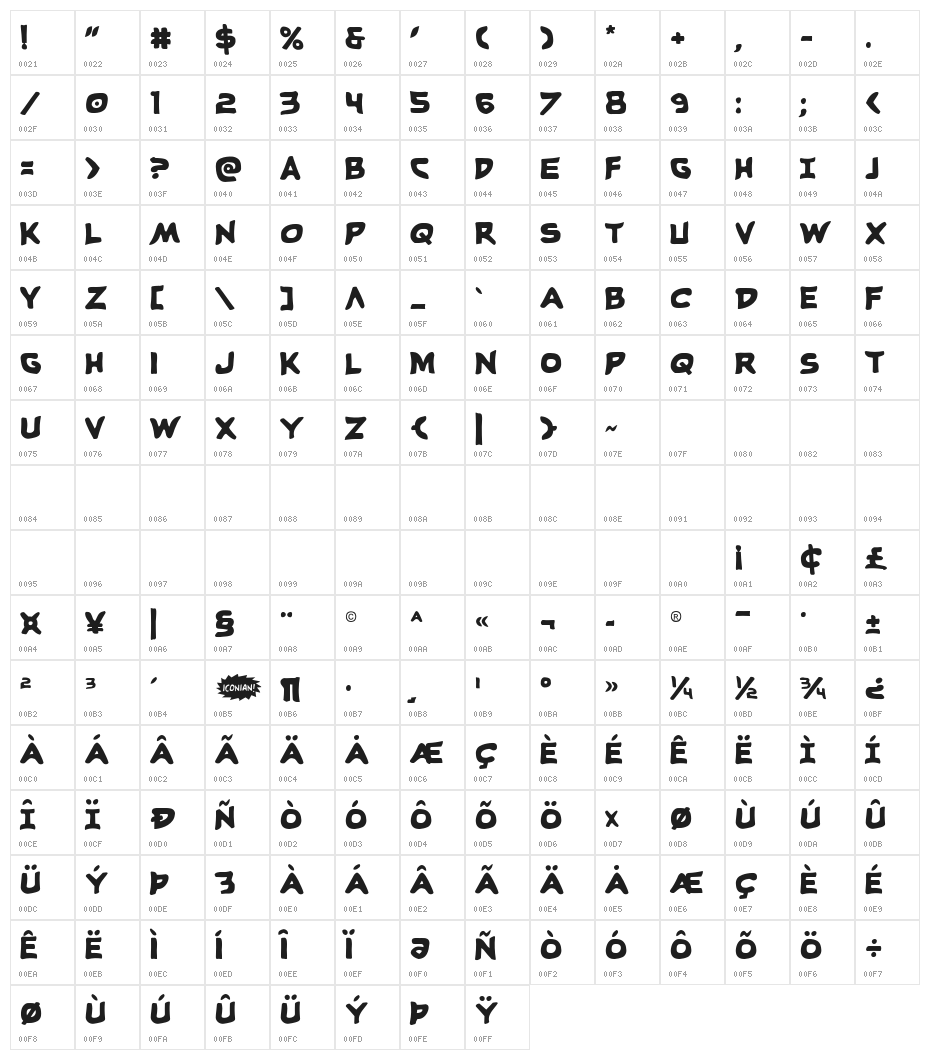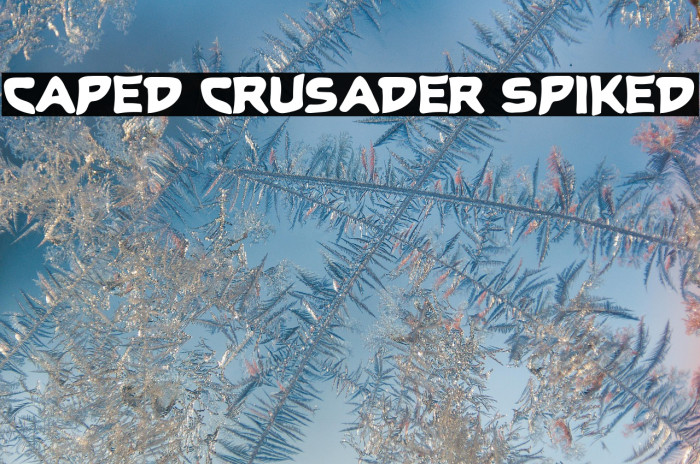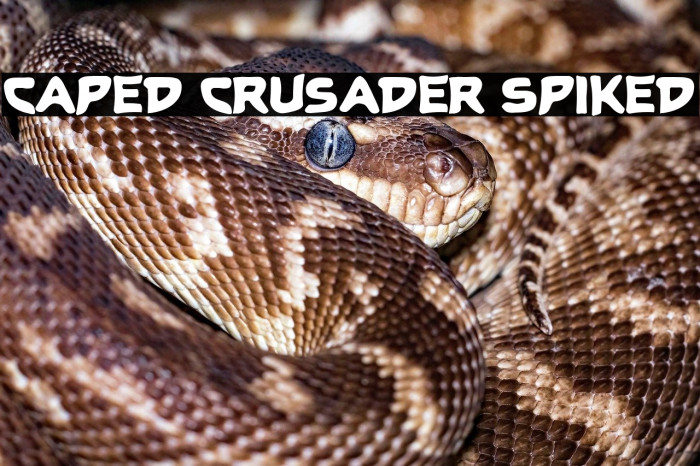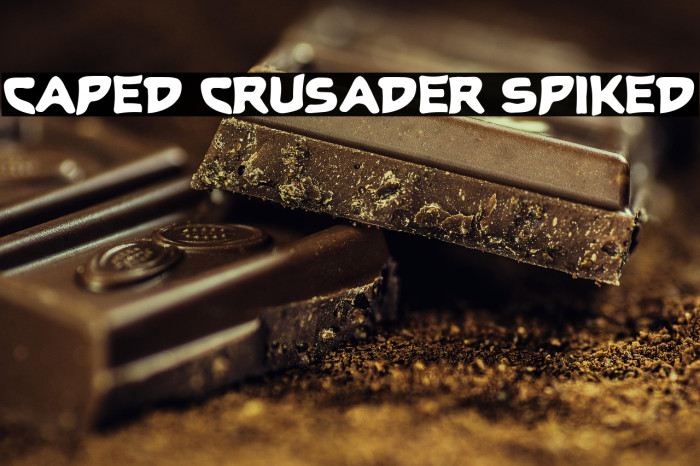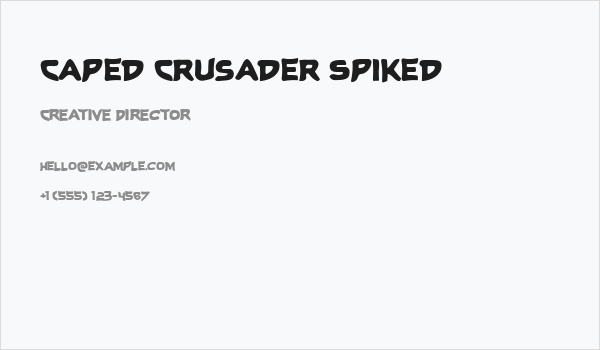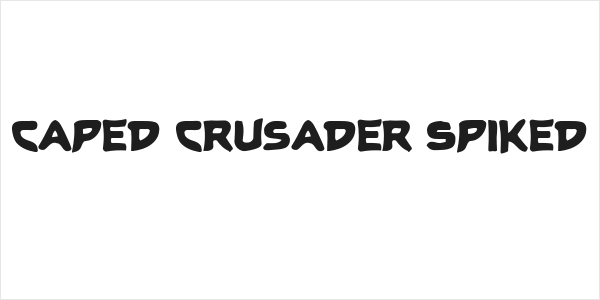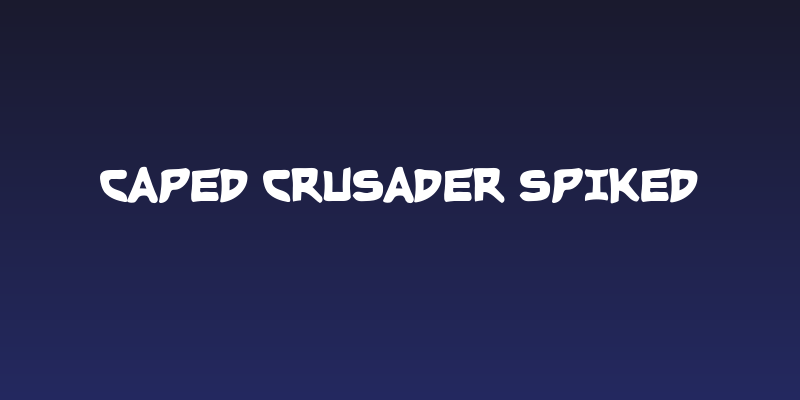
Caped Crusader Spiked Font
Caped Crusader Spiked Description
This font features bold, dynamic characters with a playful and slightly aggressive style. The letters are thick and have a spiked, jagged appearance, giving them a unique and edgy look. The uppercase and lowercase letters maintain a consistent style, with exaggerated curves and angles that create a sense of movement and energy. The numbers and special characters follow the same design principles, ensuring a cohesive appearance across all elements. This font's boldness and distinctive style make it stand out, making it suitable for attention-grabbing designs.
| Proposed Projects | Ideal for comic book titles, action-themed posters, video game graphics, and branding for edgy or adventurous products. |